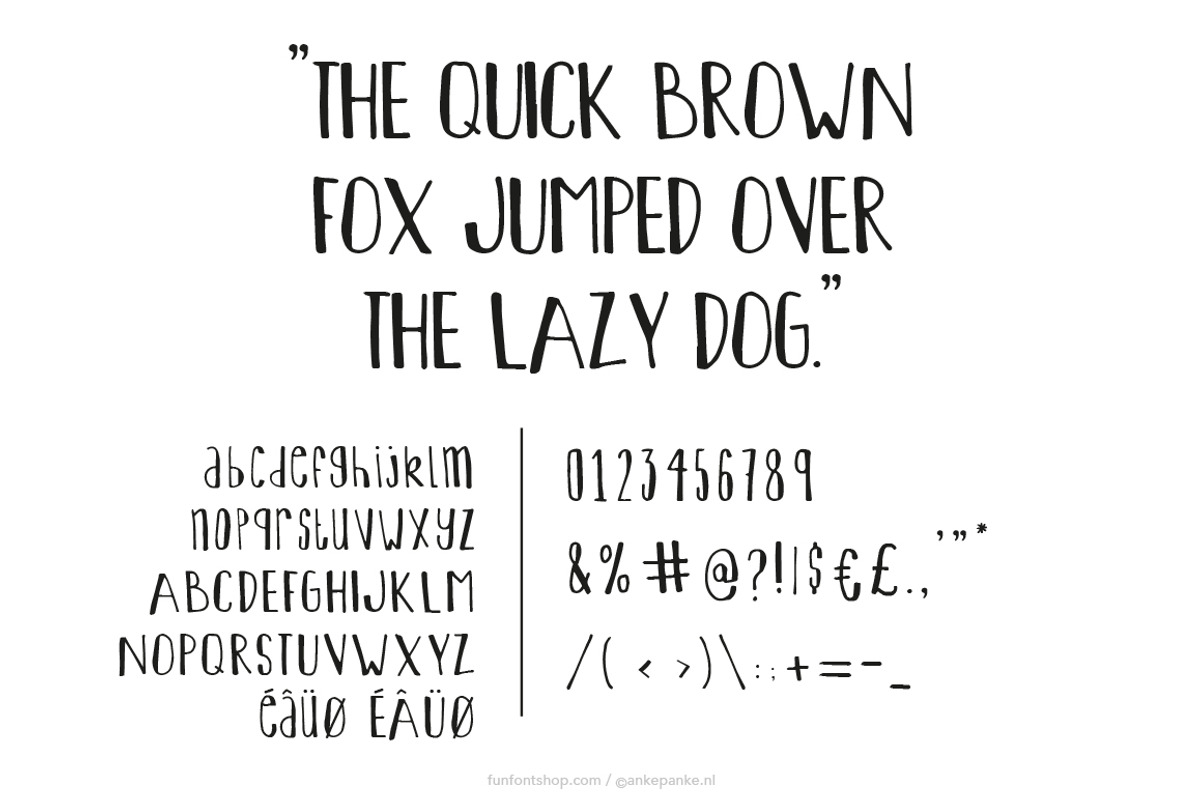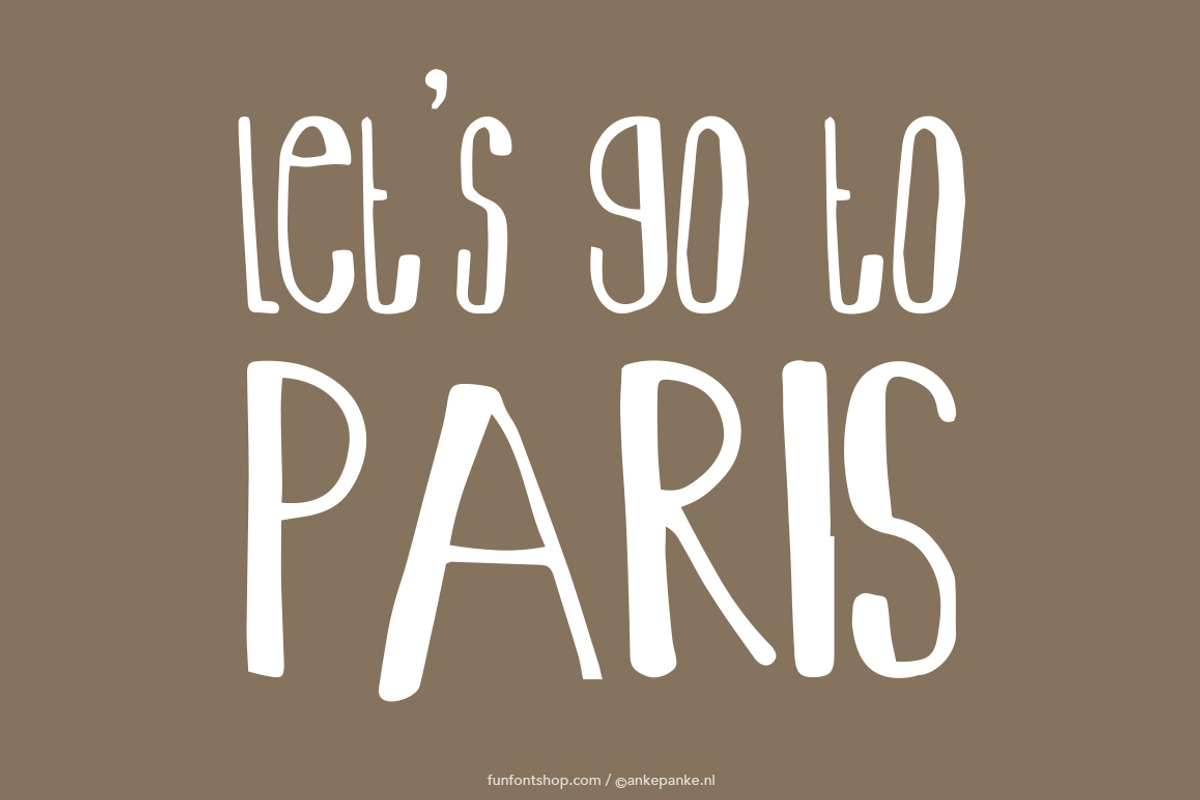
Let's go to Paris handmade Font
The letters of this classy font remind me of French vintage typography. This font was first draw by hand, scanned, vectorized and converted to a TTF file so you type with it. They have some imperfections, but I believe that adds to the handmade feeling.
- Letters Uppercase, lowercase and numbers
- Also Letters with accents (ü,î,ç,é,å,ò,œ, etc)
- Punctuation !?#%&*+=-_,.:;'"/|¢£€$©®@()